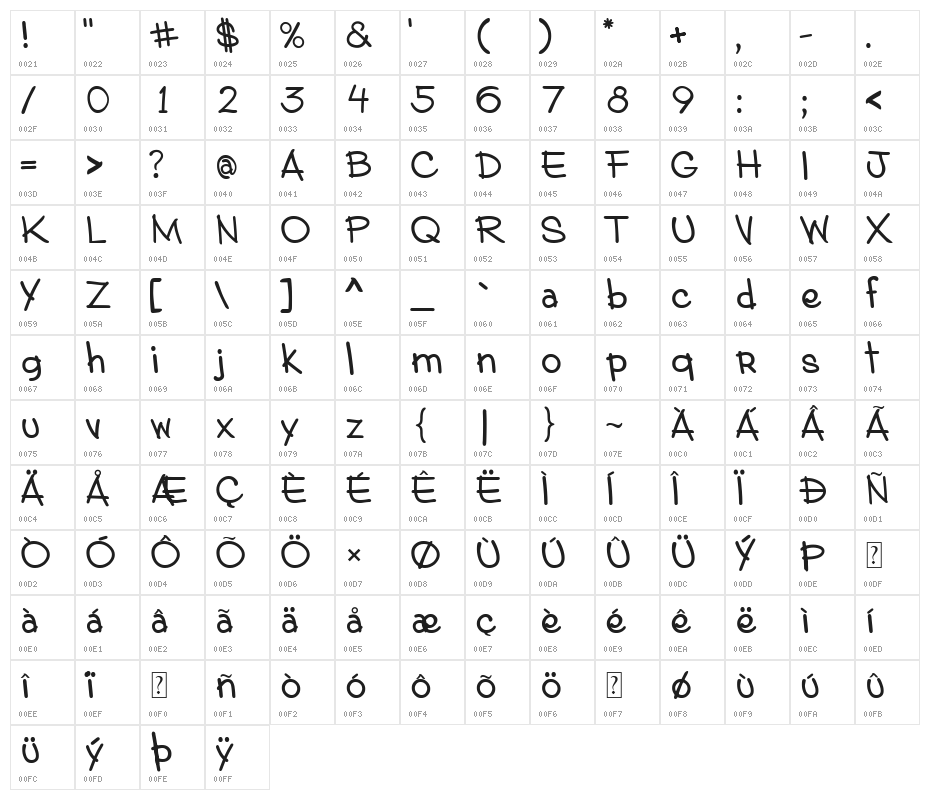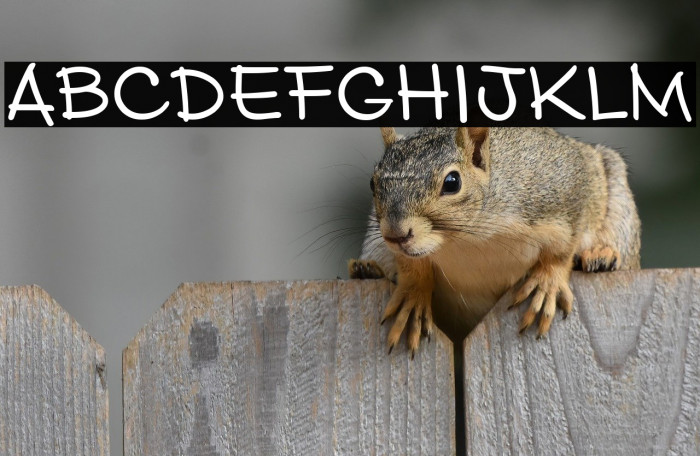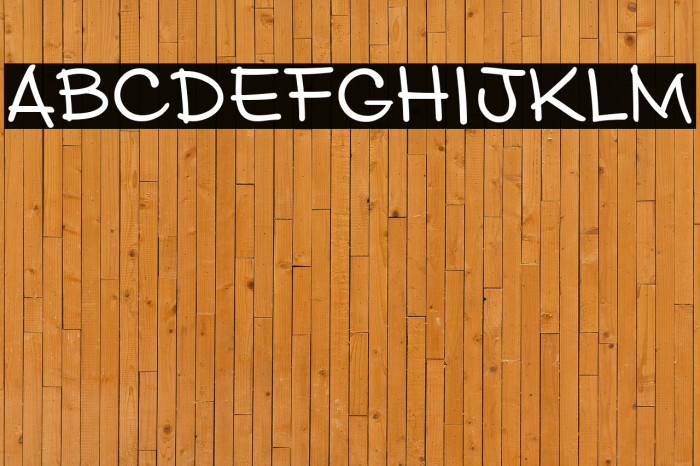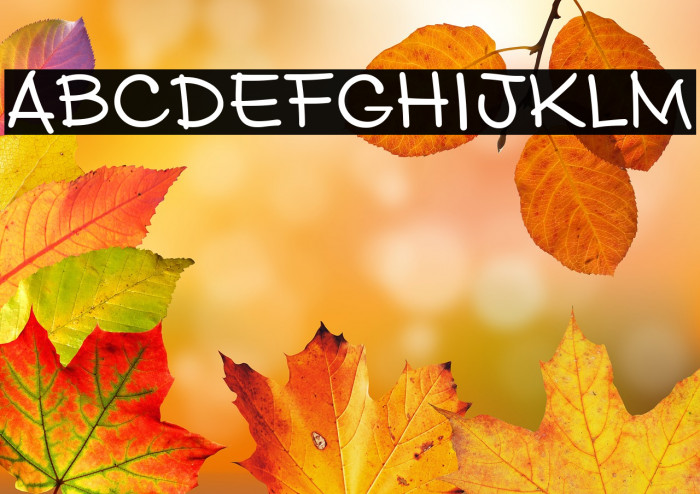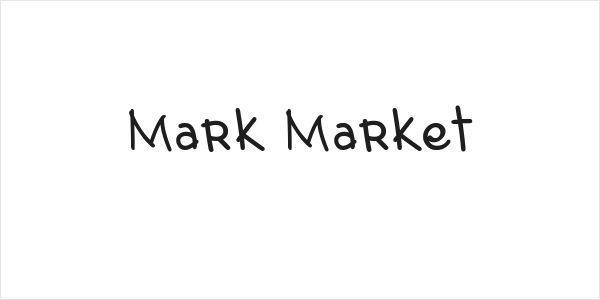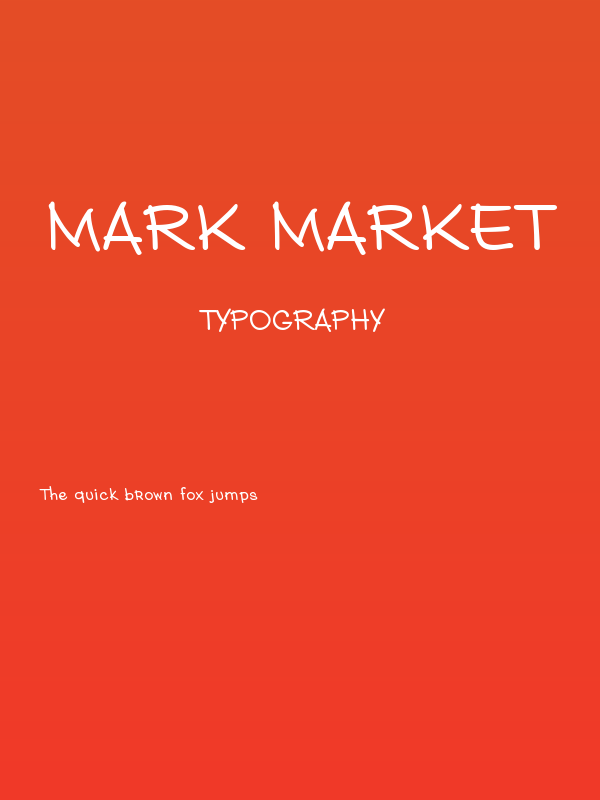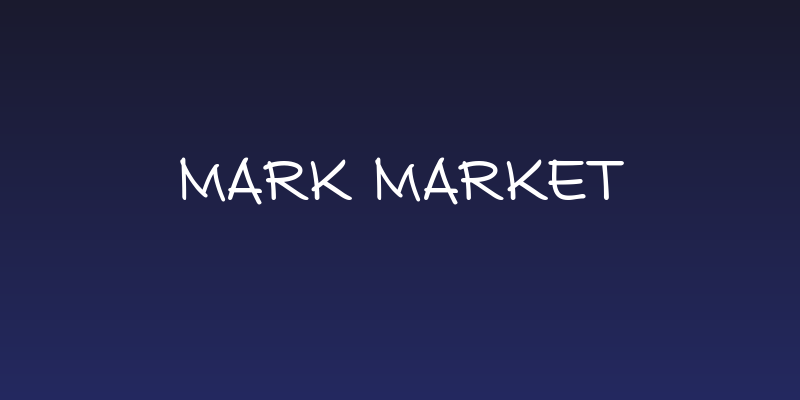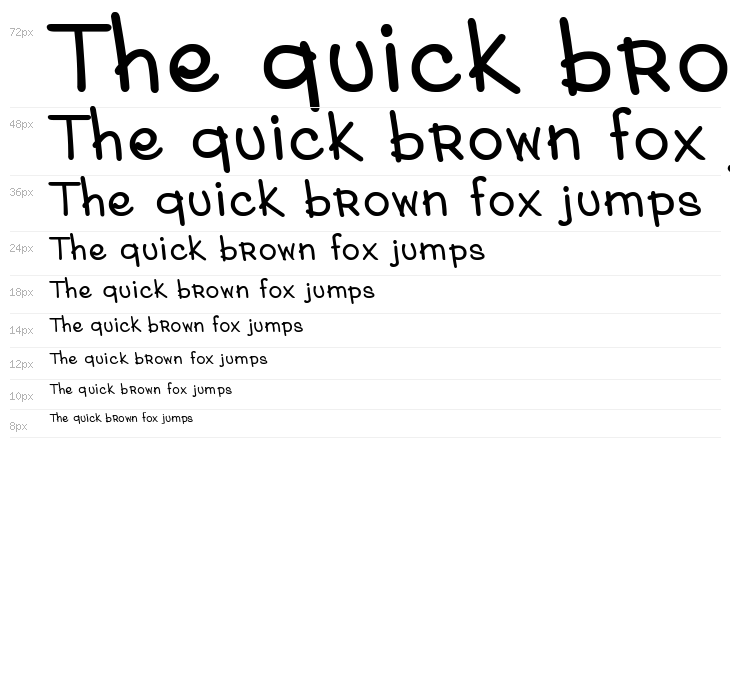
Mark Market Font
Mark Market Description
This font features a playful and casual handwritten style, characterized by its rounded and slightly irregular letterforms. The strokes are consistent in thickness, giving it a uniform appearance while maintaining a friendly and approachable vibe. The uppercase and lowercase letters are well-balanced, with a slight tilt that adds to the informal feel. Numbers and special characters are designed to match the overall style, ensuring cohesiveness across different uses. This font is versatile, suitable for projects that require a personal touch or a relaxed atmosphere.
| Use Case | Headlines, Informal text, Branding |
| Proposed Projects | Ideal for children's books, greeting cards, casual branding, and social media graphics. |